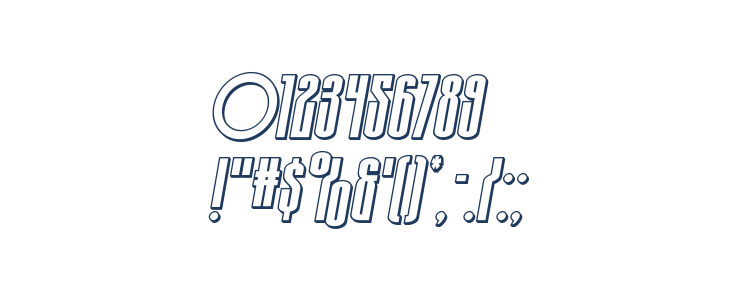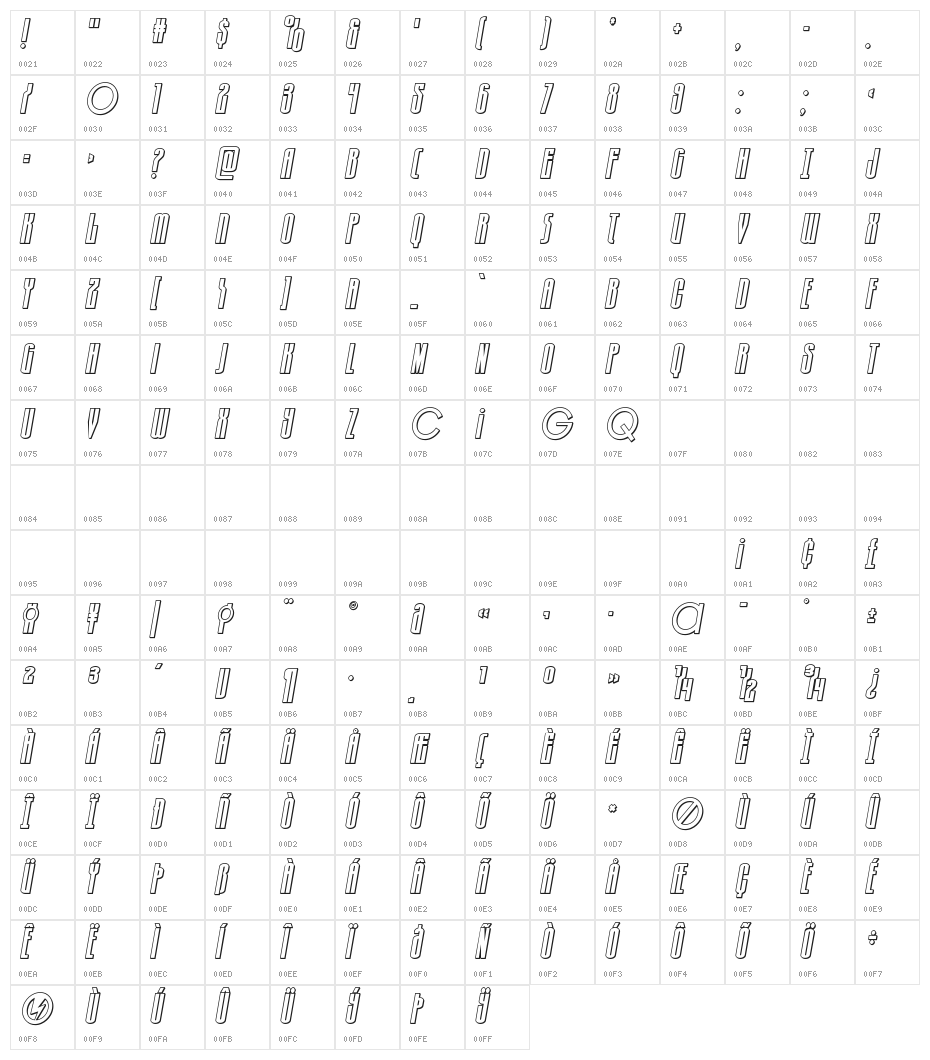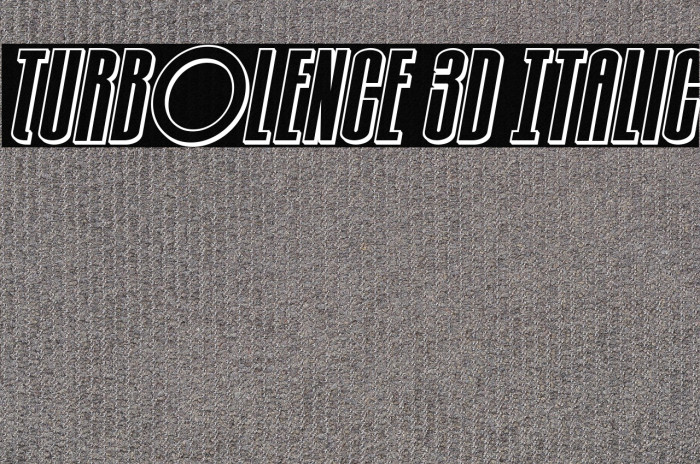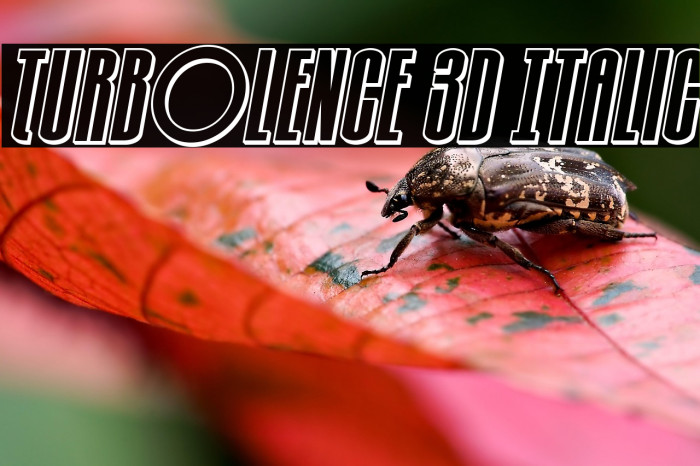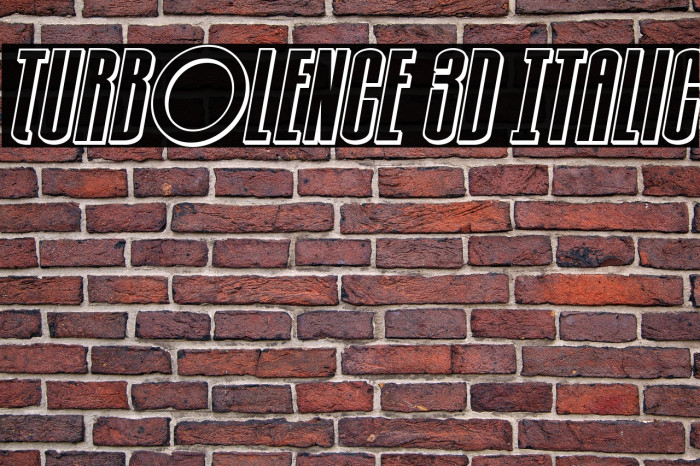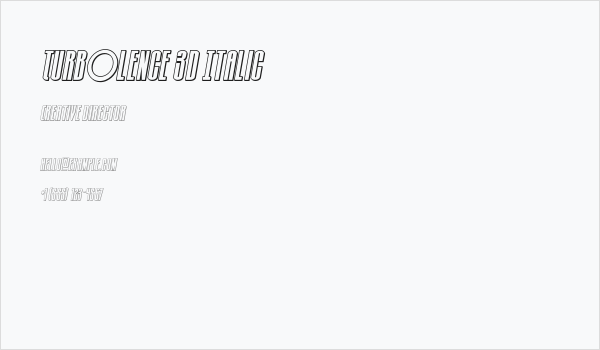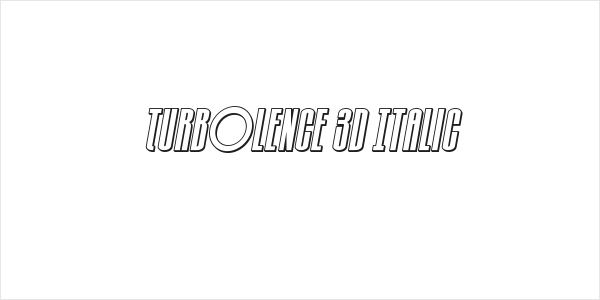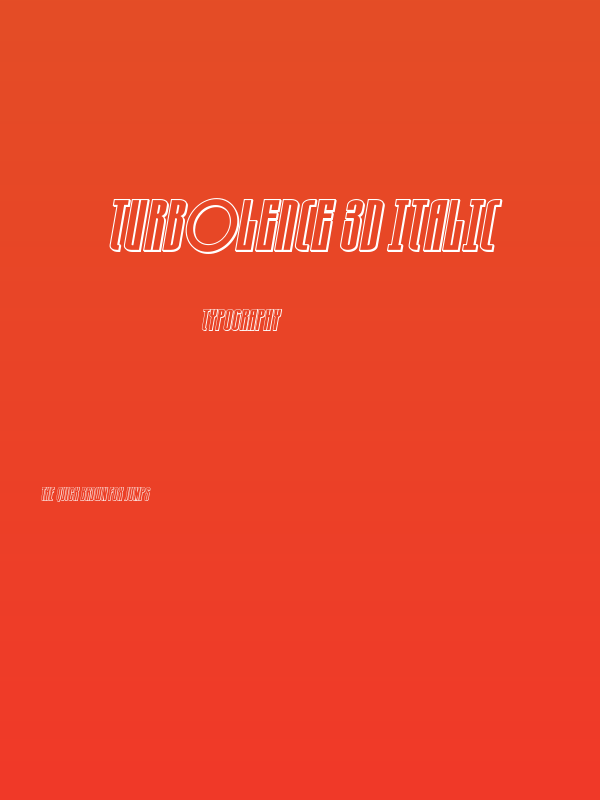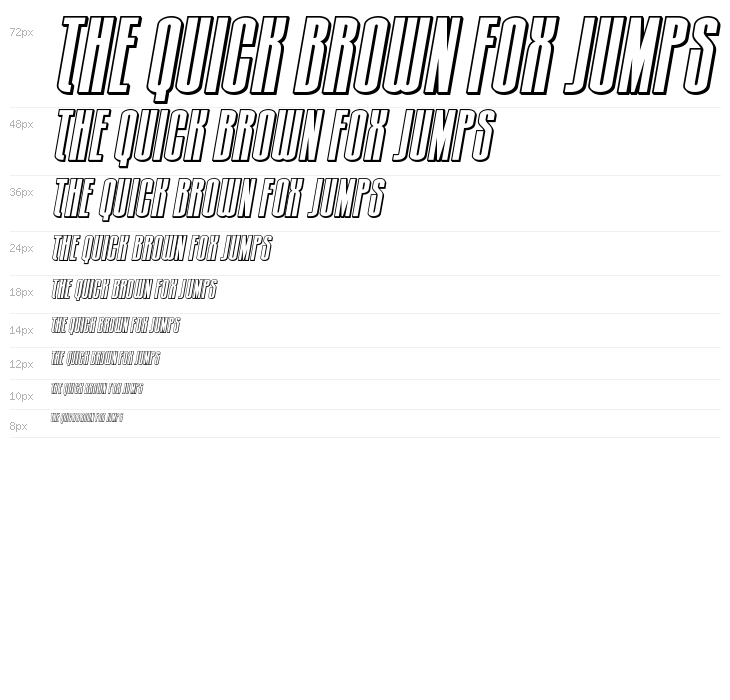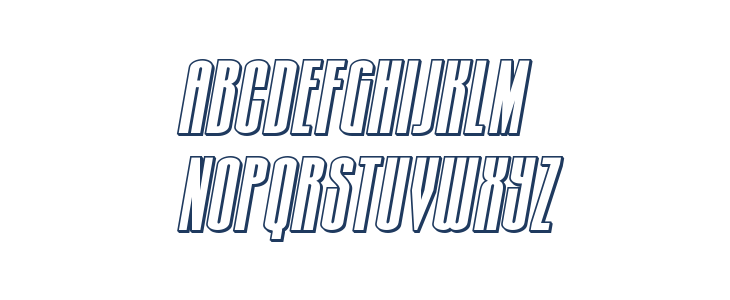
Turb0lence 3D Italic Font
Turb0lence 3D Italic Description
This font features a bold, three-dimensional appearance with an italic slant, giving it a dynamic and futuristic look. The characters are outlined, creating a sense of depth and movement. The uppercase and lowercase letters maintain a consistent style, with sharp angles and clean lines. The numbers and special characters follow the same design principles, ensuring uniformity across all glyphs. This font is ideal for projects that require a modern and eye-catching aesthetic.
| Proposed Projects | Ideal for video game titles, sci-fi movie posters, tech branding, and dynamic advertisements. |